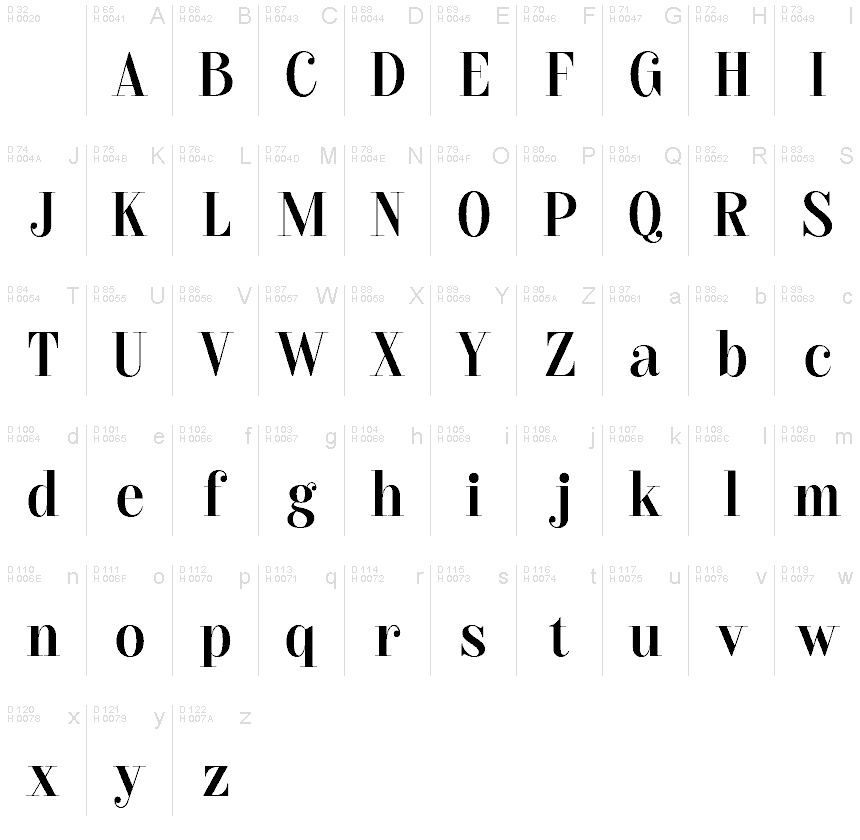
CS Lobelia Regular Demo
CS Lobelia font by Craft Supply Co. is a serif font with an elegant and sophisticated appearance. It evokes a vintage-inspired style with its refined and formal design. This classical influence allows it to suit projects where a traditional yet fresh look is most needed.